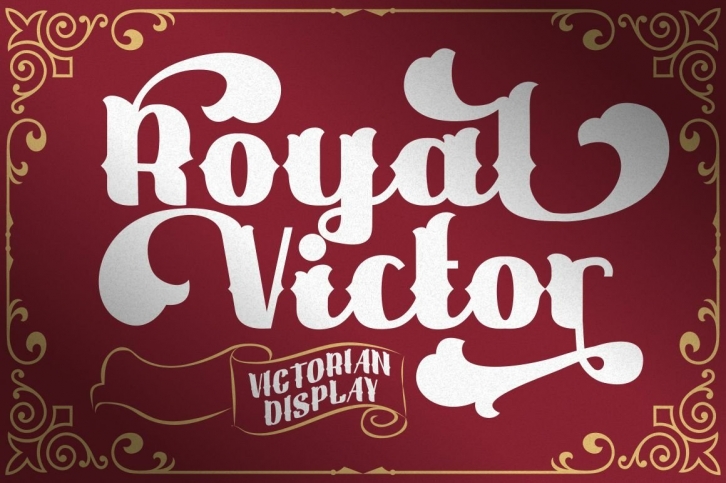
Royal Victor is a great font that was designed by PutraCetol Studio. Imagine the amount of combinations you can create using this font! The archive is 10.61 MB and it was released on May 18, 2022. Royal Victor looks beautiful on wedding invitations, greeting cards, logos, posters, labels, t-shirt designs, logos, business cards and is perfect for use in ink or watercolor works, fashion, magazines, packaging and food menus, children's books and more!